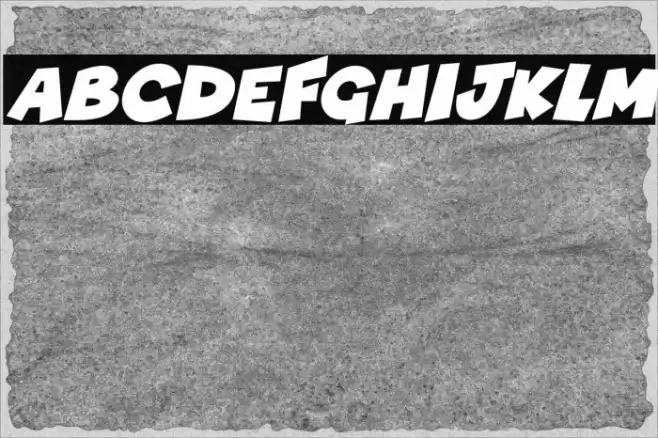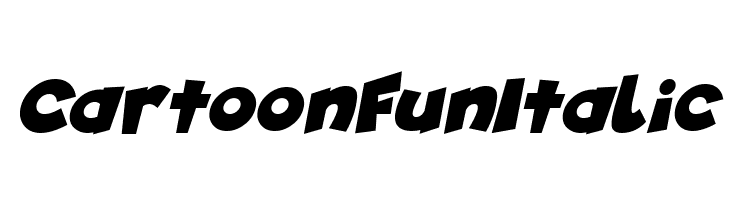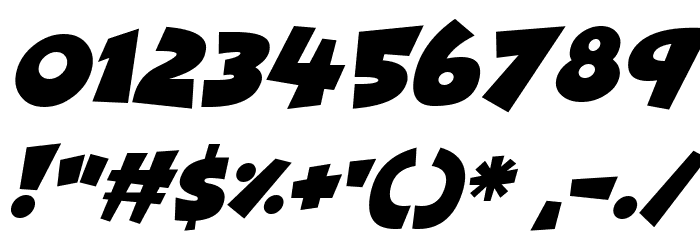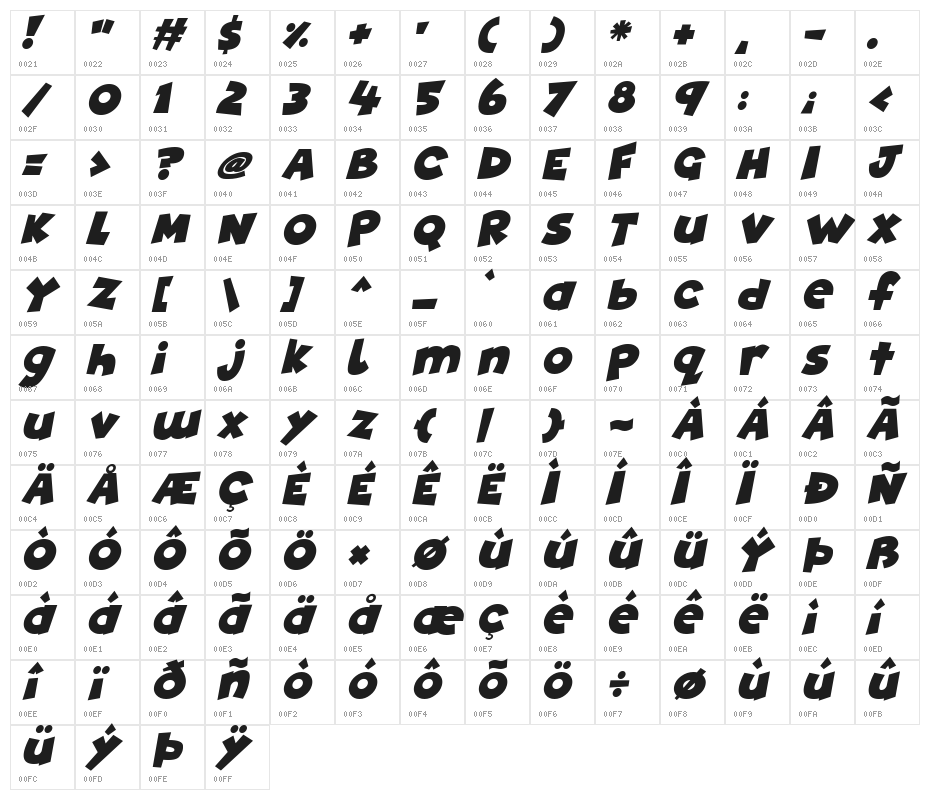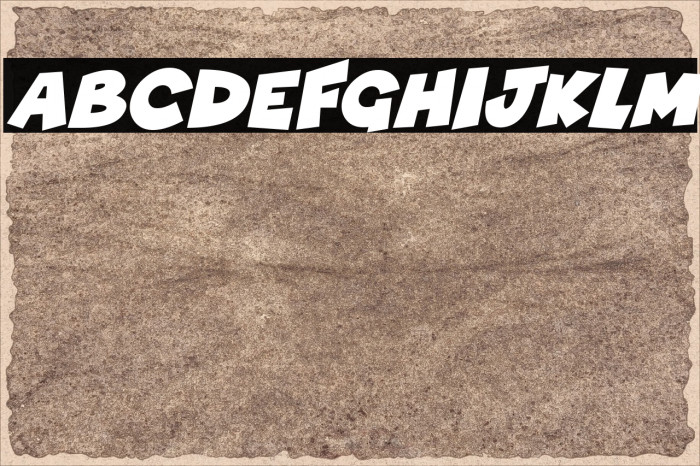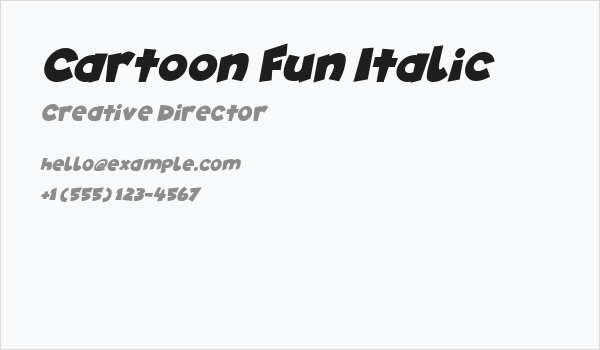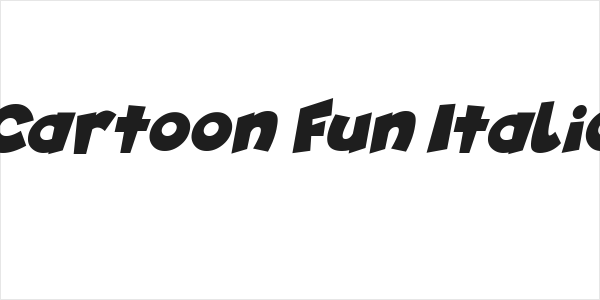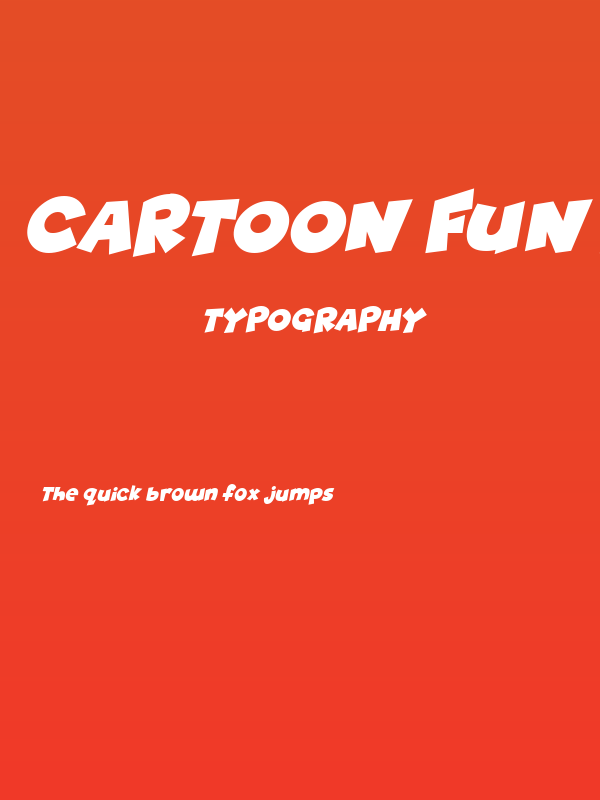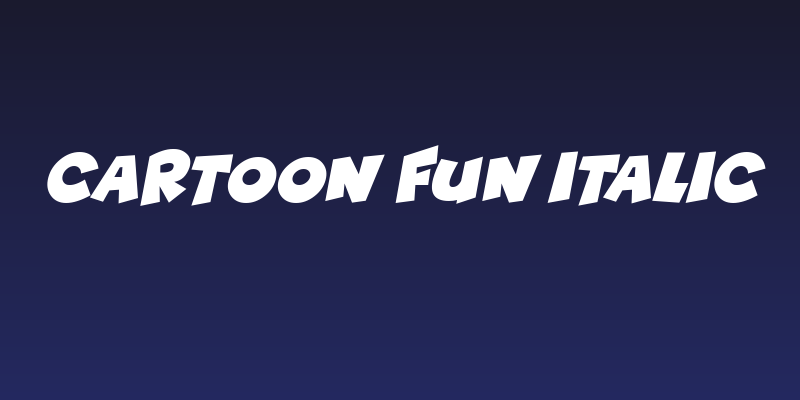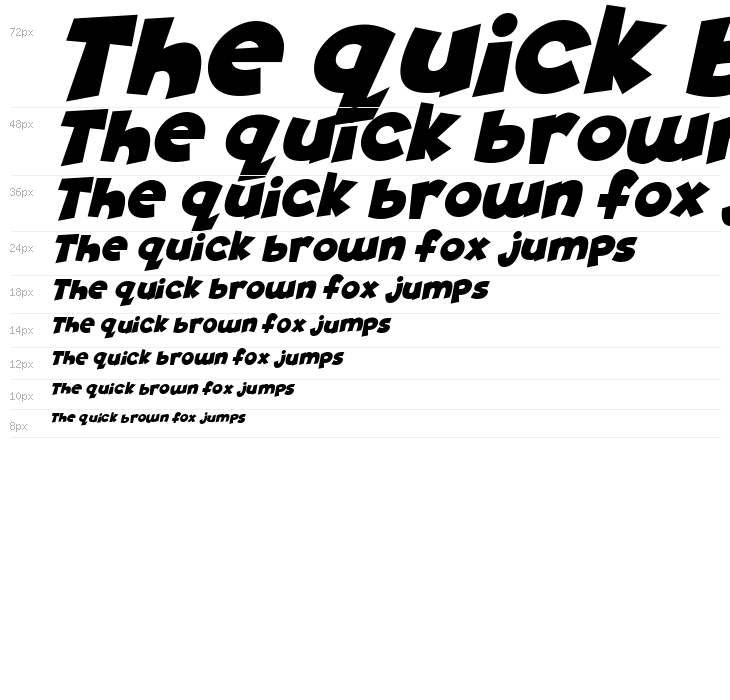
Cartoon Fun Italic Font
Cartoon Fun Italic Description
This playful and dynamic font features bold, exaggerated characters with a distinct italic slant, giving it a lively and energetic appearance. The letters are thick and rounded, with a whimsical style that suggests movement and fun. The uppercase and lowercase letters maintain a consistent style, with the uppercase being slightly more pronounced. Numbers and special characters are equally bold and maintain the same playful aesthetic, making them suitable for a variety of creative applications. The font's overall design is eye-catching and perfect for projects that require a touch of humor and lightheartedness.
A bold, playful italic font with exaggerated, rounded characters from Cartoon fonts.
- Font: Cartoon Fun Italic
- Proposed Projects: Ideal for children's books, comic strips, playful branding, and party invitations.
- Overall Style: Playful, Fun, Energetic
Cartoon Fun Italic UPPERCASE
Cartoon Fun Italic LOWERCASE
Cartoon Fun Italic OTHER CHARS